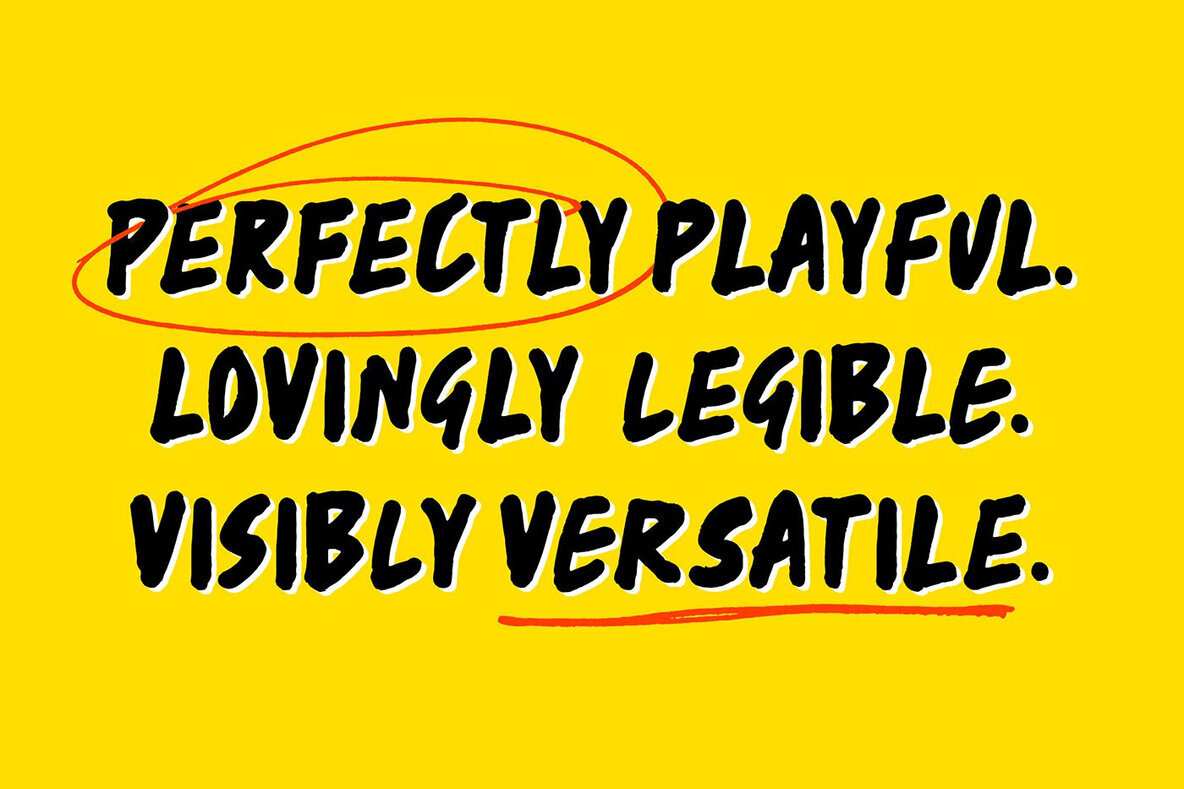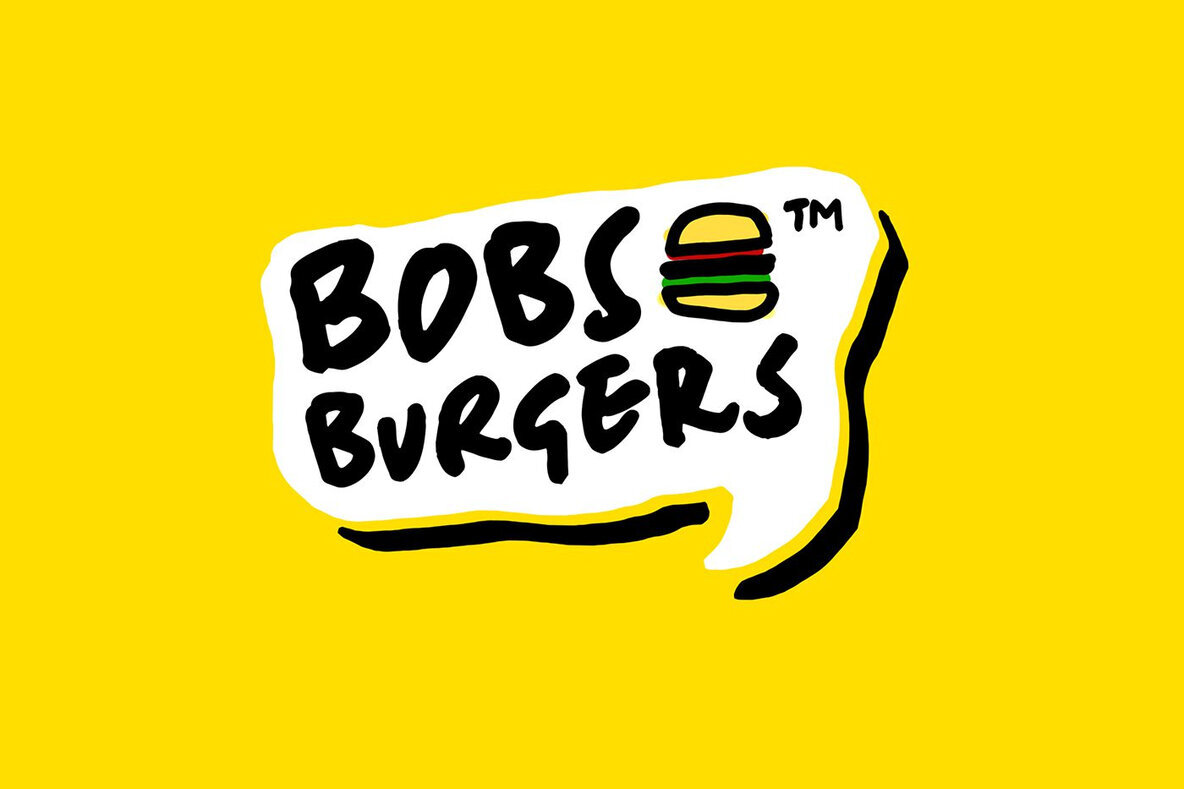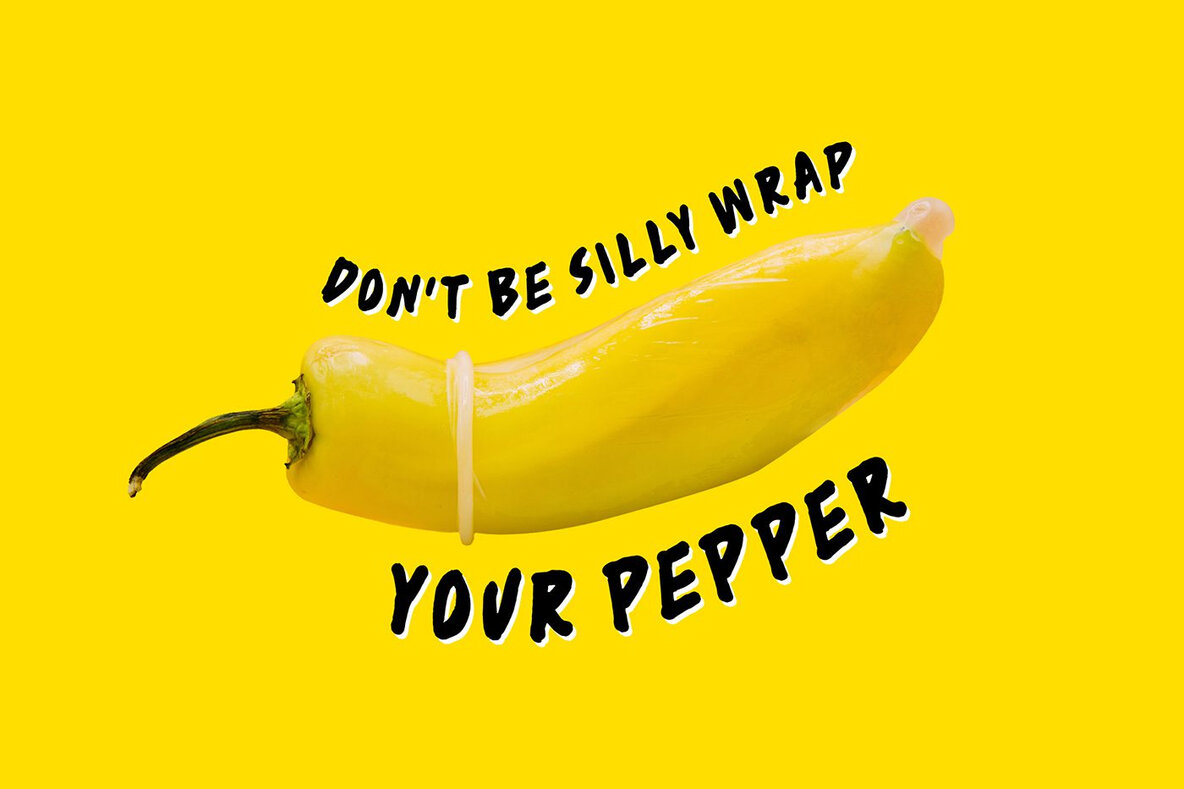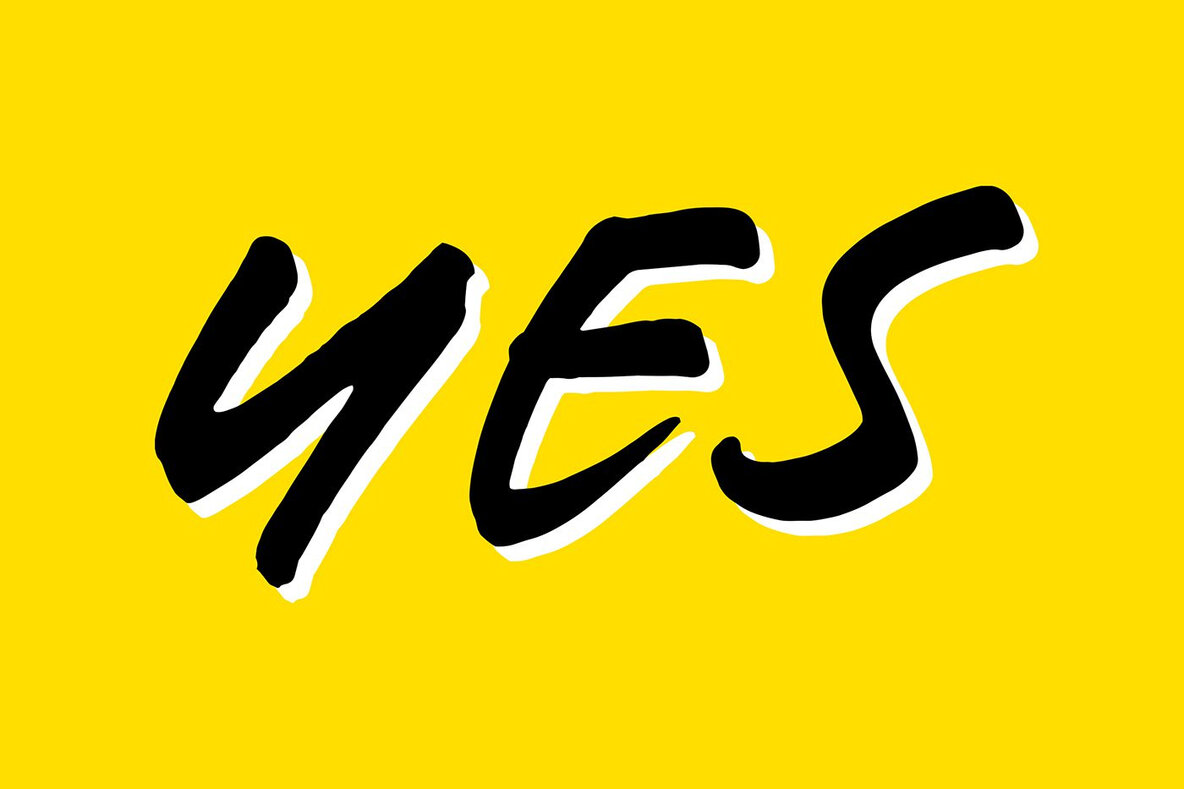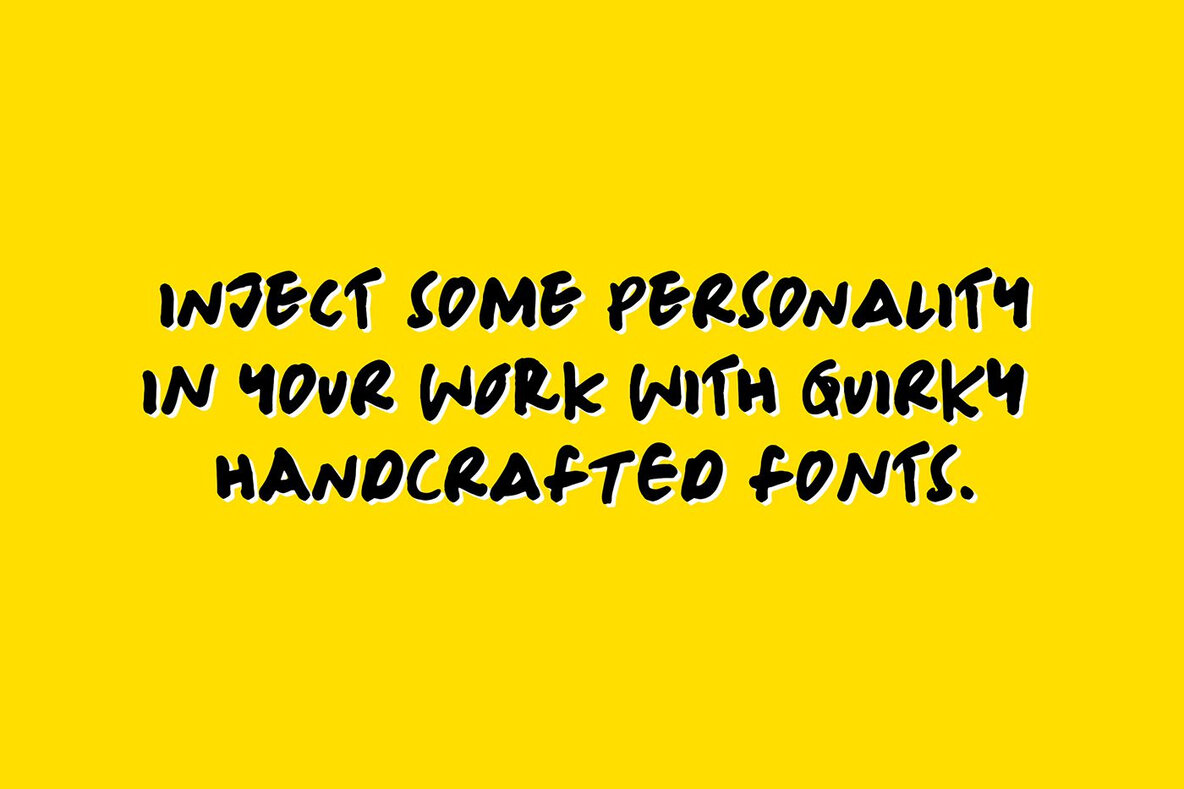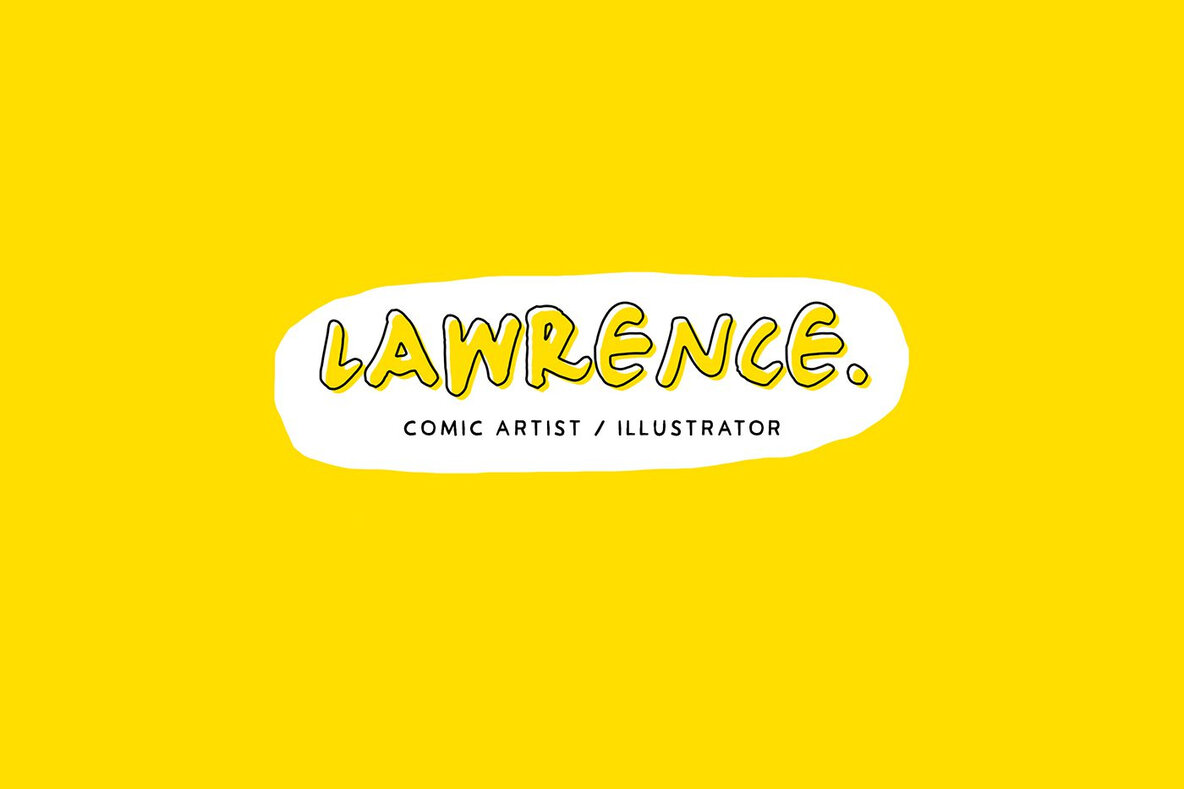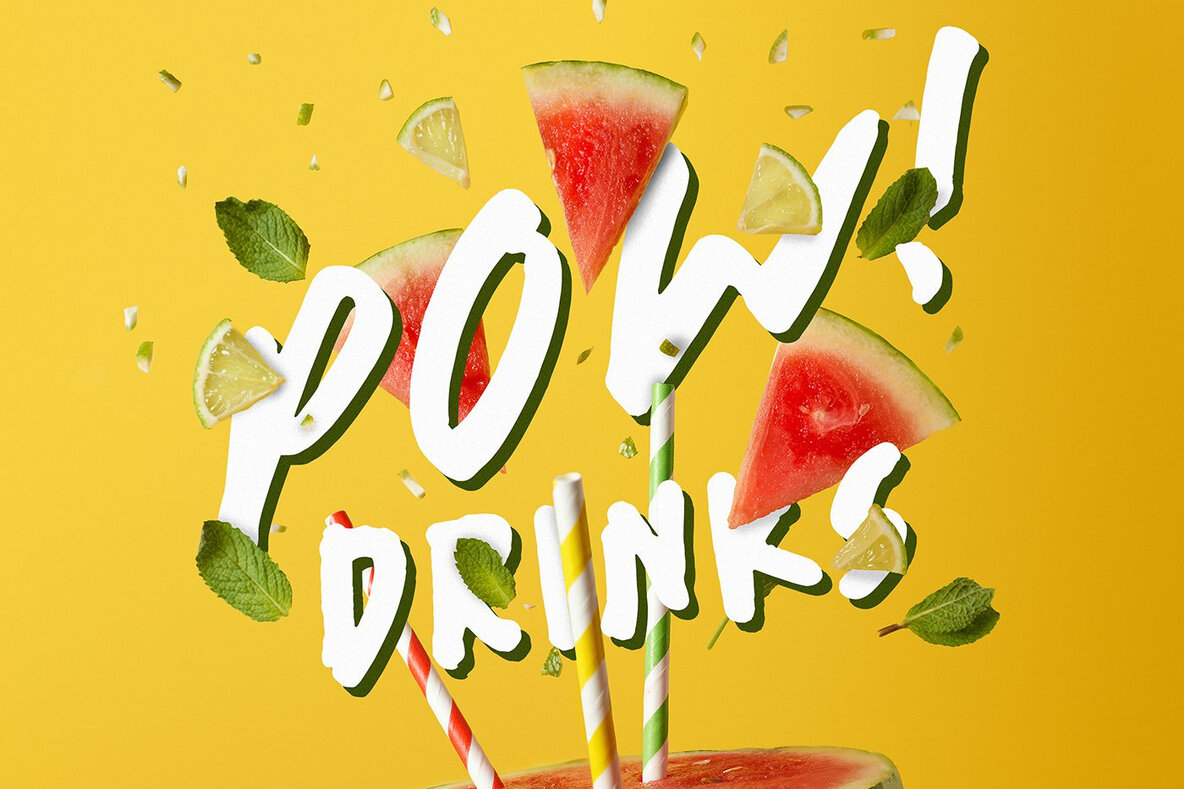
TC Comic Hand Font
TC Comic Hand Flynn
TC Comic Hand Hank
TC Comic Hand Jakob
Comic Hand is a handwritten brush font collection with a playful edge, designed to bring a bit of character to your work. Great for comics, posters, and any project that could use a touch of personality. Comic Hand keeps things readable while adding just the right amount of quirk. Whether it’s for a fun headline, a caption, or a graphic, this font family makes things feel a little more human, a little less polished, and a lot more fun!